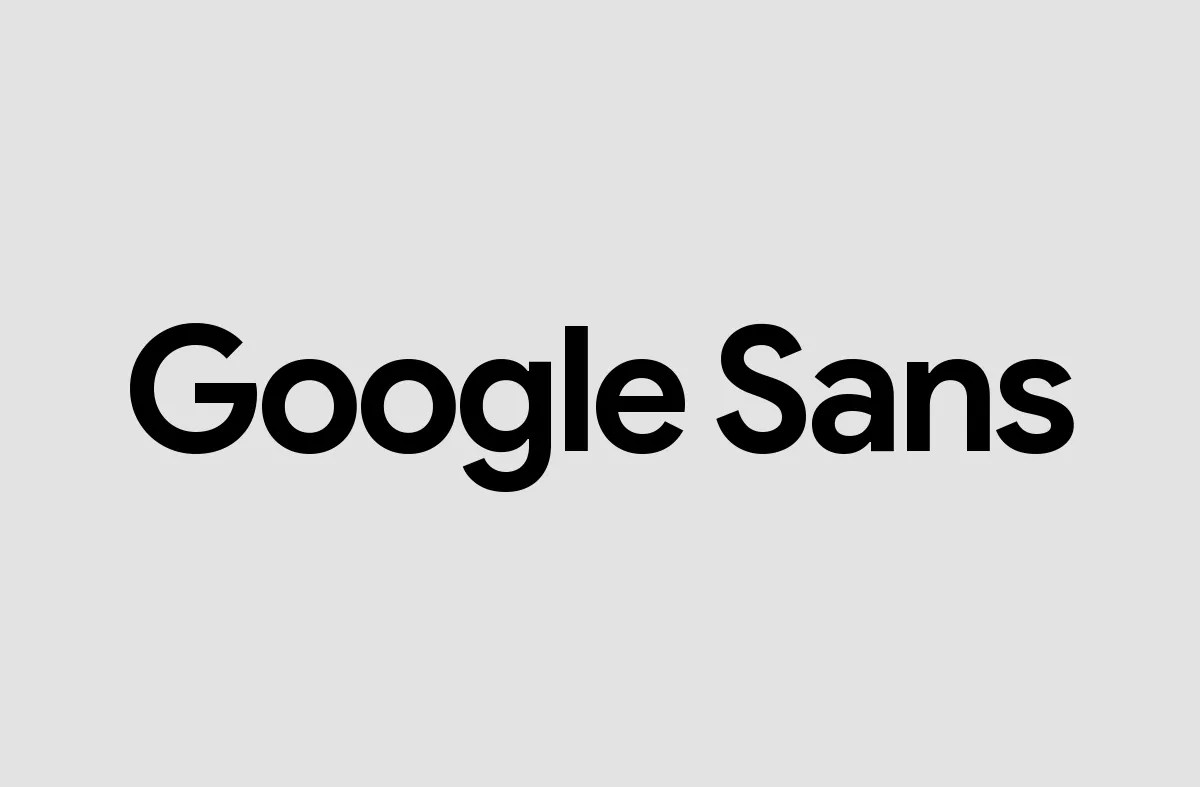
Google sans regular is a sans serif type font that can be used on any device such as pc, mac,. A b c d e f g h i j k l m n o p q r s t u v w x y z # 3d alien animal army stencil asian arabic bitmap. Having a font with something impact, but with a visual elegance, will.
This Font Is The Creation Of Steve Matteson That Is A.